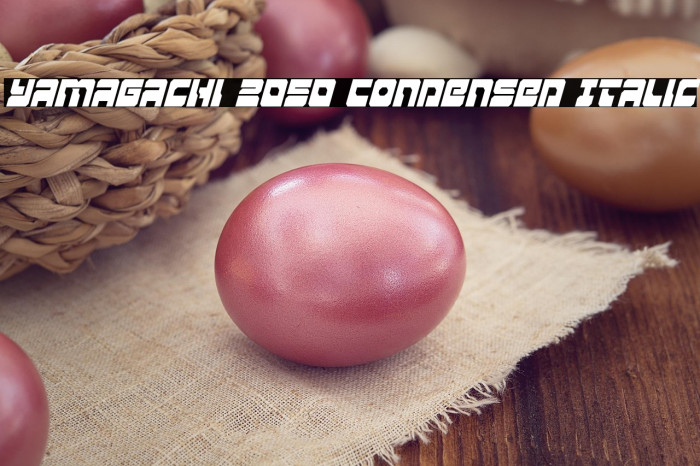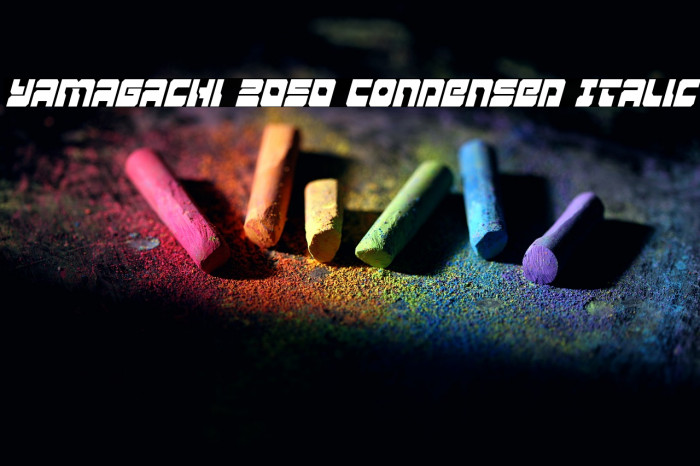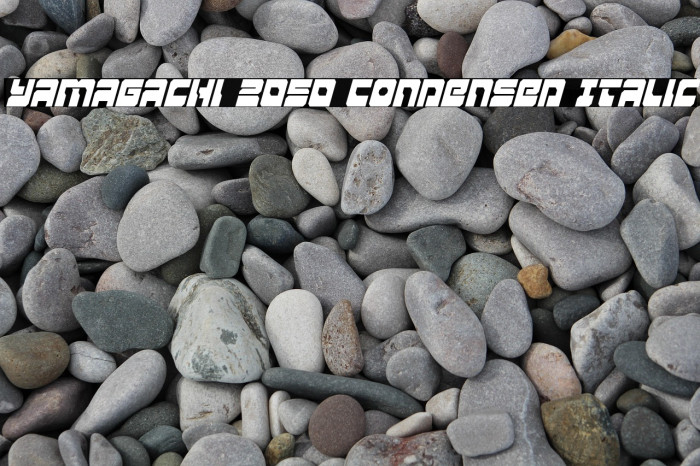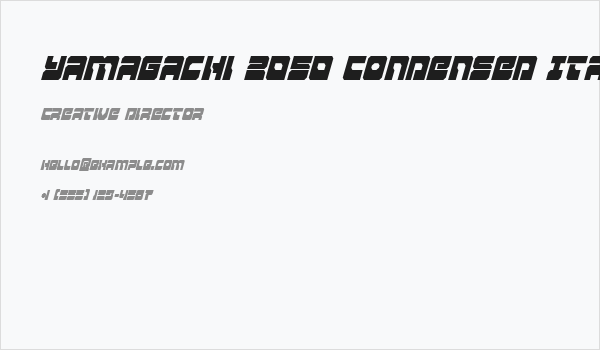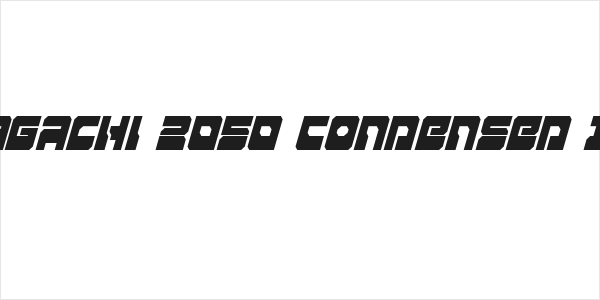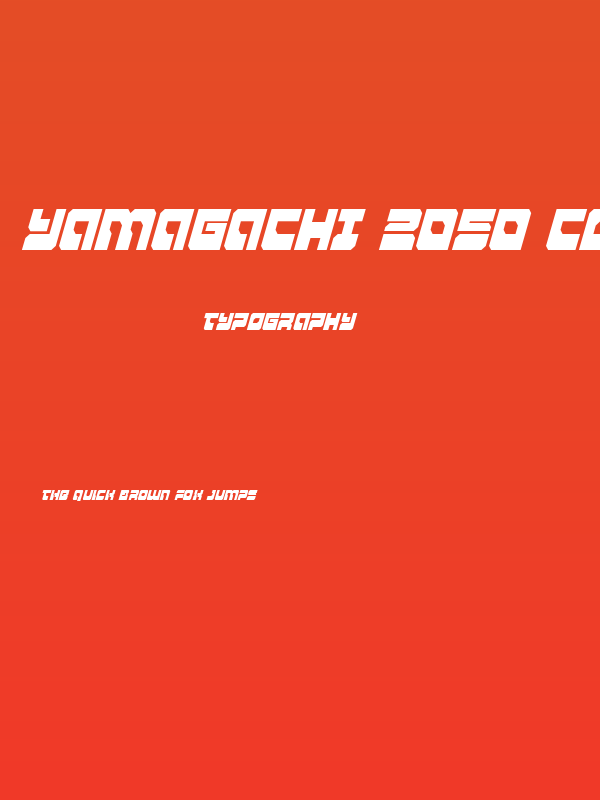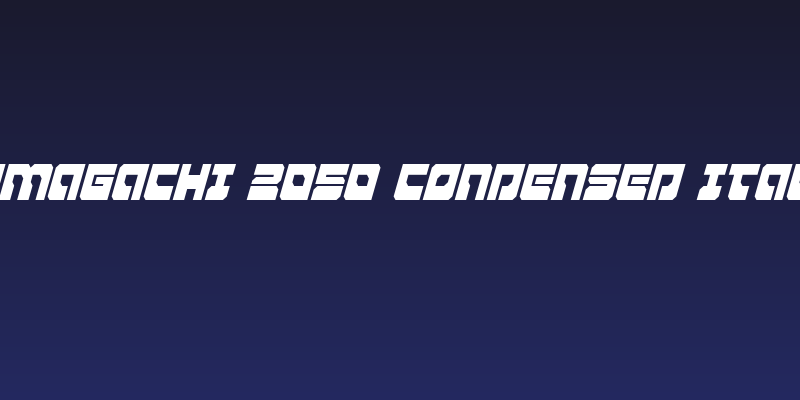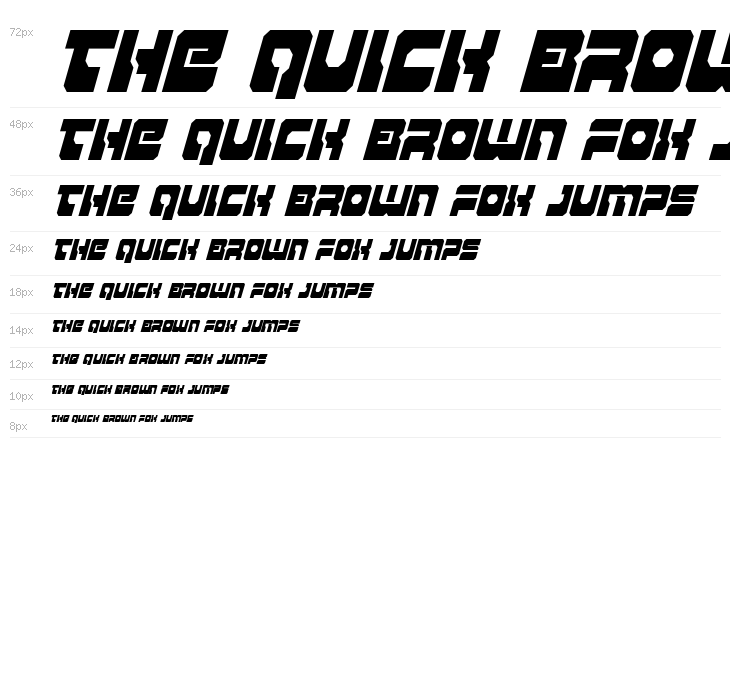
Yamagachi 2050 Condensed Italic Font
Yamagachi 2050 Condensed Italic Description
This font features a futuristic and bold design with a condensed structure. The characters are italicized, giving them a dynamic and forward-leaning appearance. The strokes are thick and uniform, contributing to a high contrast between the characters and the background. The angular and geometric shapes of the letters create a modern and edgy aesthetic, making it suitable for projects that require a strong visual impact. The font maintains a consistent style across uppercase, lowercase, numbers, and special characters, ensuring a cohesive look in any design application.
| Proposed Projects | Ideal for sci-fi themed designs, video game titles, technology branding, and futuristic posters. |